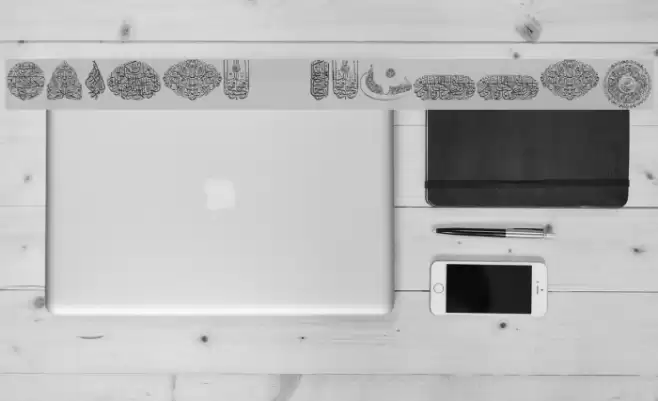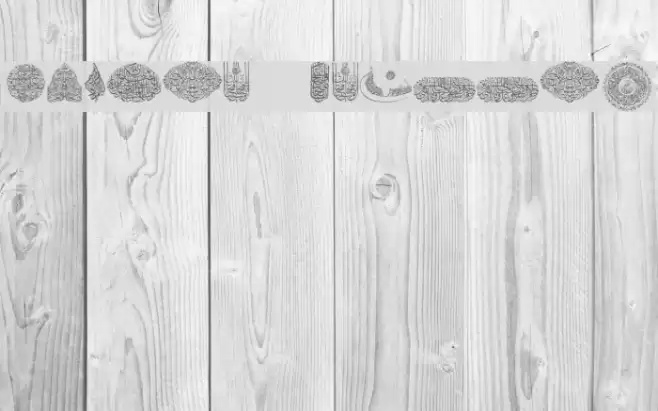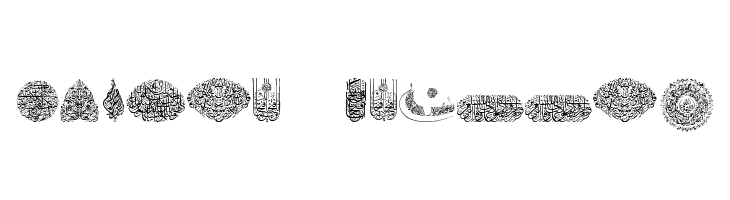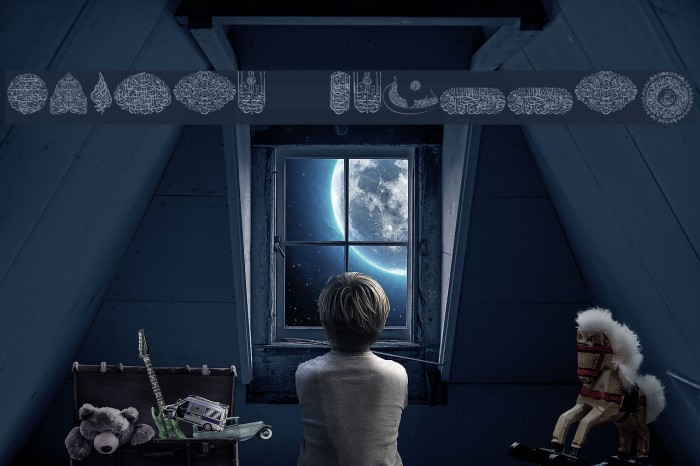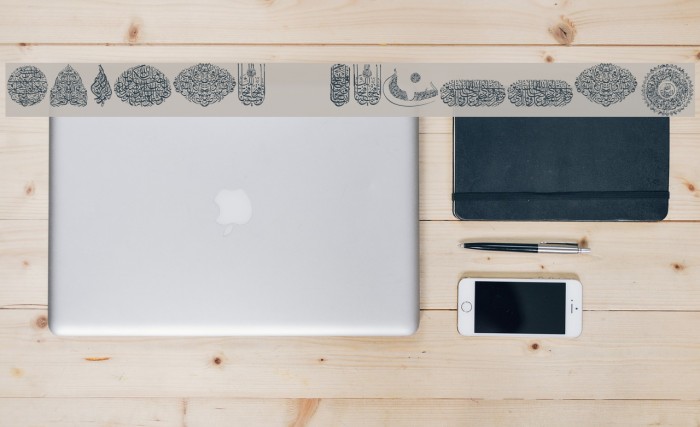
My Font Quraan 6 Font
My Font Quraan 6 Description
Highly decorative Arabic calligraphic glyphs, each character formed as an intricate emblem or medallion, featuring dense, ornate script and complex flourishes. The style is reminiscent of traditional Islamic art, with each glyph resembling a unique piece of calligraphy rather than a standard letterform.
Ornate Arabic calligraphic emblems with dense decorative detail from Uncategorized fonts.
- Proposed Projects: Religious publications, ceremonial documents, Islamic art posters, decorative certificates, cultural branding.
- Character Spacing: Tight
- Overall Style: Decorative, Traditional, Islamic
- Use Case: Logos, Art prints, Certificates, Religious materials, Display headlines